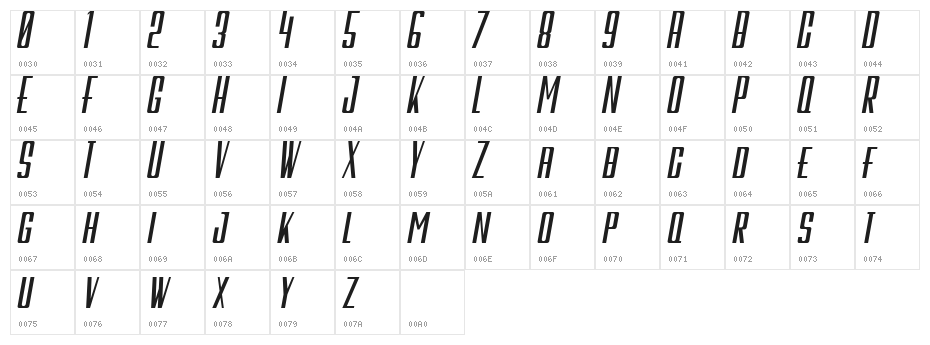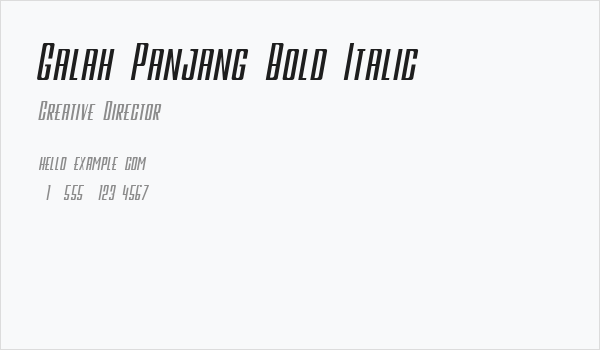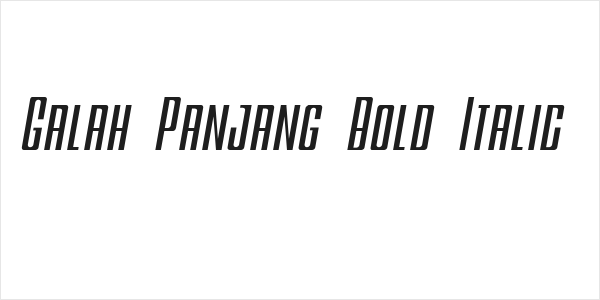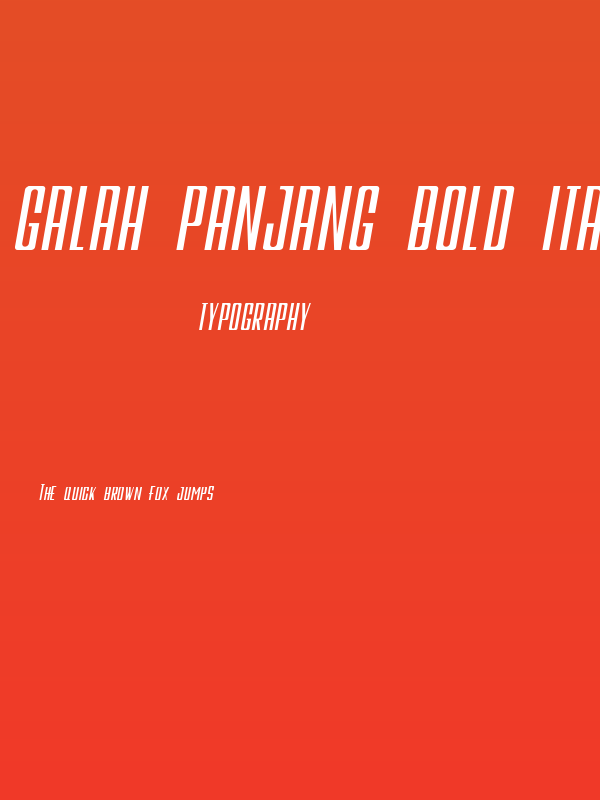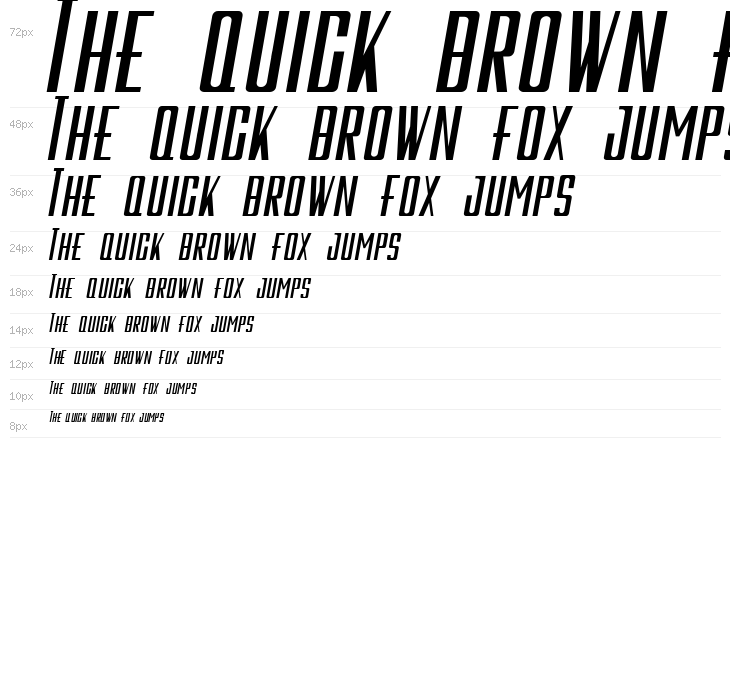
Galah Panjang Bold Italic Font
Galah Panjang Bold Italic Description
This font features a bold and italicized style with elongated, narrow characters that create a dynamic and modern appearance. The uppercase and lowercase letters are designed with a consistent slant, adding a sense of motion and energy. The numerals and special characters maintain the same boldness and slant, ensuring uniformity across all elements. The strokes are thick, providing a strong visual impact, while the spacing between characters is tight, enhancing the compact and sleek look. This font is ideal for projects that require a contemporary and assertive aesthetic.
| Proposed Projects | Ideal for branding, advertising, posters, and headlines that require a strong, modern impact. |